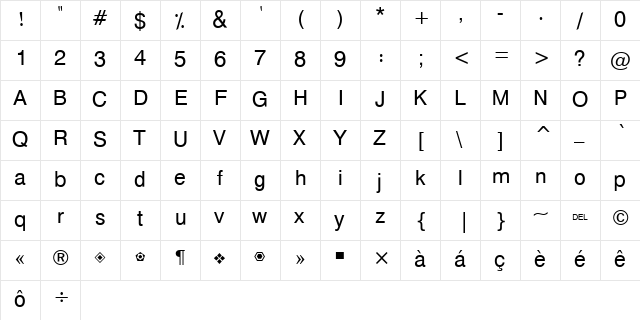
Hacen Promoter Lt Regular
| Foundry | Muhammad Hacen |
| Designer | Muhammad Hacen |
Design Context for Hacen Promoter Lt Typeface
Hacen Promoter Lt is a composed and adaptable typeface that performs quietly and consistently across a wide range of design contexts. The delicate stroke weight brings airiness and refinement to layouts.